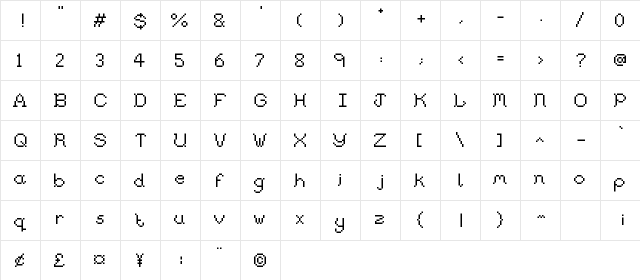
PixeledEveyLouv1 Medium
Design Context for PixeledEveyLouv1 Typeface
PixeledEveyLouv1 is rooted in pixel-grid construction, making it a natural fit for game UI, retro computing aesthetics, and digital nostalgia projects.
A natural choice for retro game titles, chiptune music branding, 8-bit UI, and digital nostalgia projects.
Pro Tip: Pair PixeledEveyLouv1 with flat colour palettes and simple geometric UI elements to reinforce its digital aesthetic.